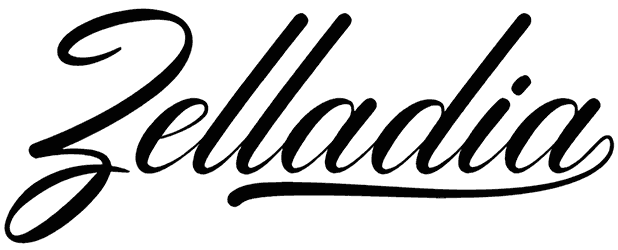
Zelladia Font
Zelladia is a script font that provides aesthetics without losing its solidity and comes with accurate kerning, thus looking insanely perfect for a wide range of creative ideas.
This calligraphy font would be your superior game-changer in the realm of designing social media posts, magazines, applications, book covers, or flyers. The undeniable fact about this font is that it carries a vibe of delicacy, softness, vitality, or professionalism. Needless to say, check out our archive for daily updates.